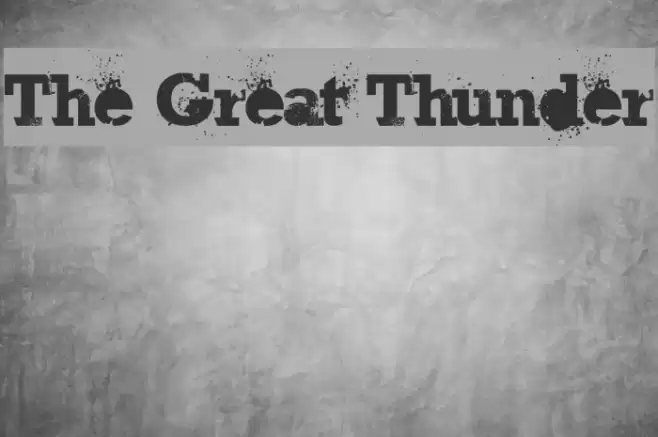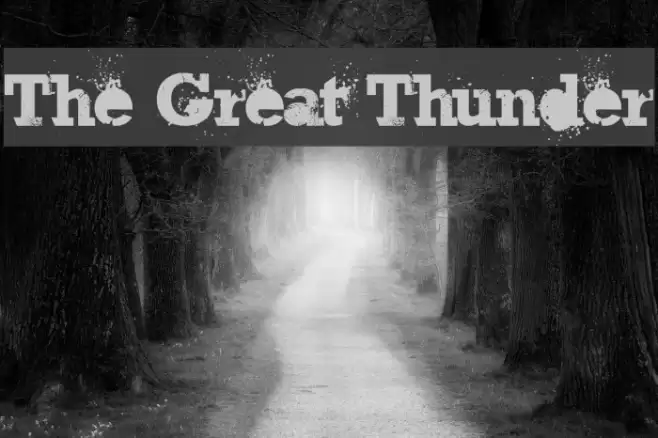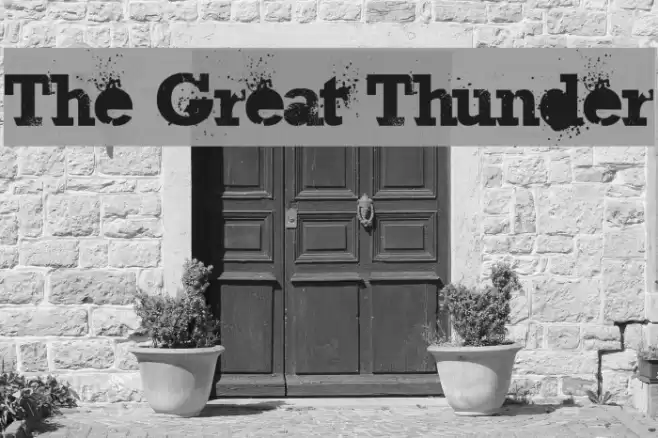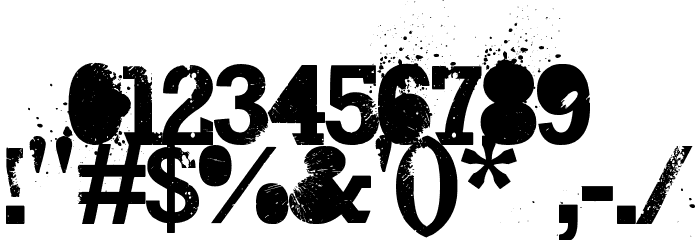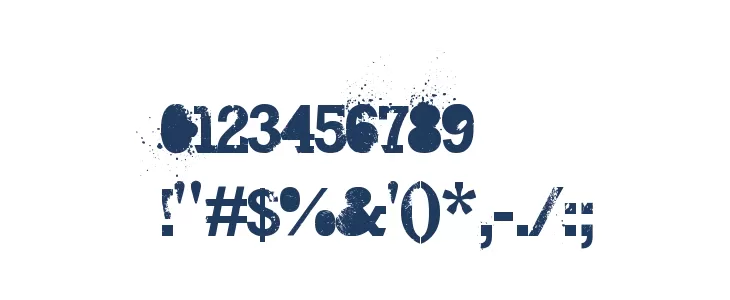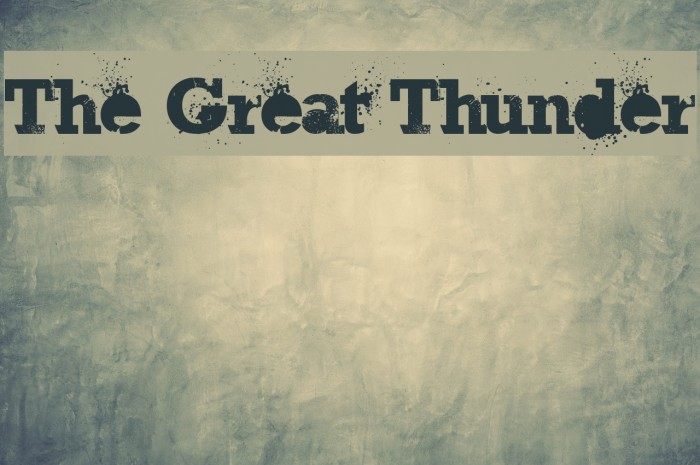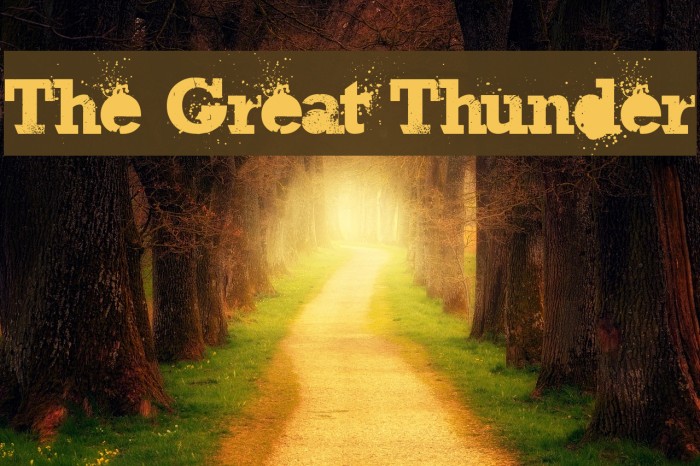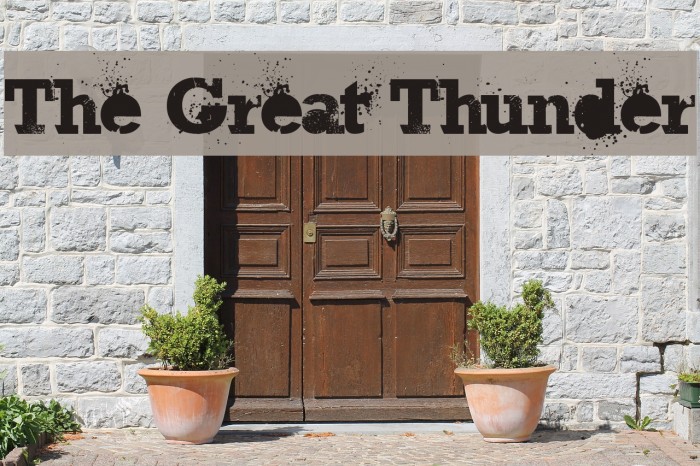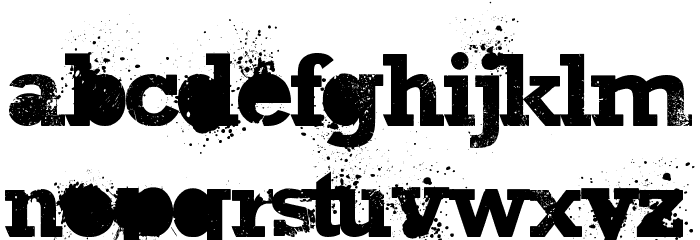
The Great Thunder Font
The Great Thunder Description
This font features a bold and distressed style, characterized by a heavy, impactful presence with a grunge texture. The letters are thick and robust, with a splattered effect that gives them a weathered, urban look. The uppercase and lowercase letters maintain a consistent weight, while the numbers and special characters follow the same distressed theme. This font's unique appearance makes it stand out, ideal for projects that require a strong, gritty aesthetic.
A bold, distressed font with a grunge texture and urban appeal from Distorted Eroded fonts.
- Proposed Projects: Ideal for album covers, posters, streetwear branding, and any design needing a bold, gritty look.